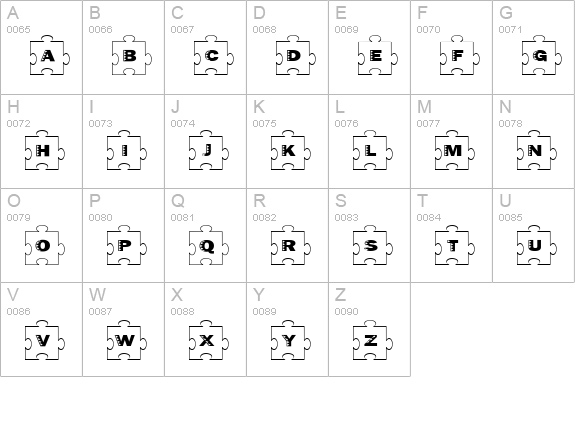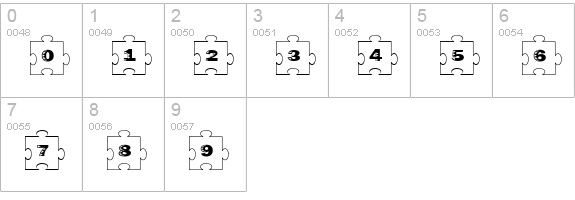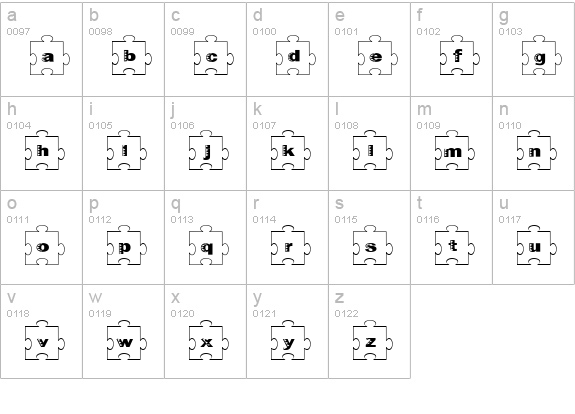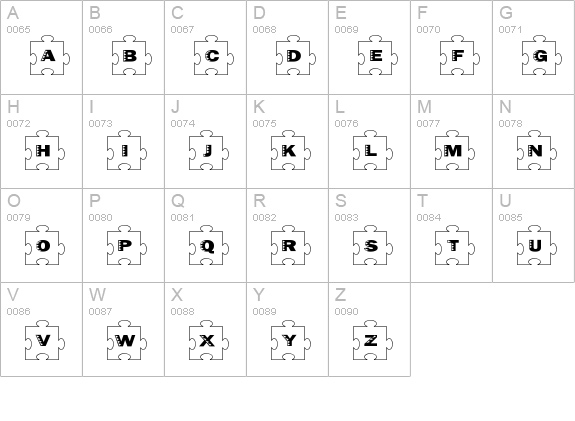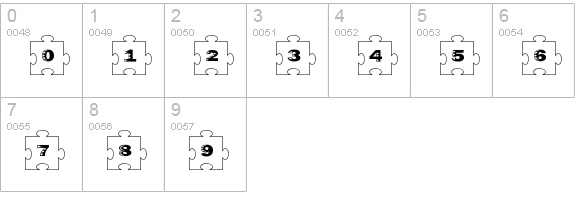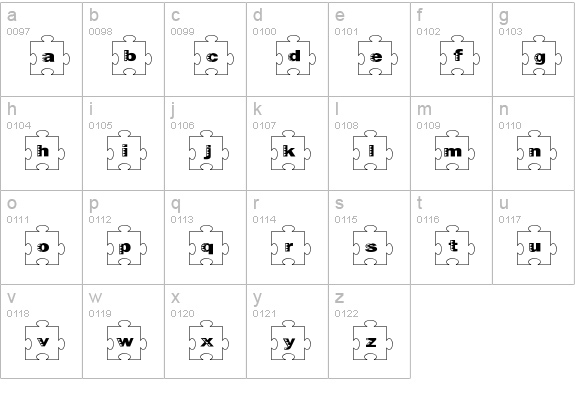
Failed Font 2 Jigsaw Font Details
Failed Font 2 Jigsaw is a quirky and unique font that adds a playful touch to any design project. With its jigsaw puzzle-inspired letter shapes, this font is sure to stand out and capture attention. Despite its name, Failed Font 2 Jigsaw is anything but a failure when it comes to creativity and originality. What's even better is that Failed Font 2 Jigsaw is available for free download at FontsMarket.com. This means you can easily add this fun font to your collection without spending a dime. Whether you're working on a poster, invitation, or branding project, Failed Font 2 Jigsaw is a great choice for adding a touch of whimsy and personality. Download it today and let your creativity soar with this free and fantastic font!